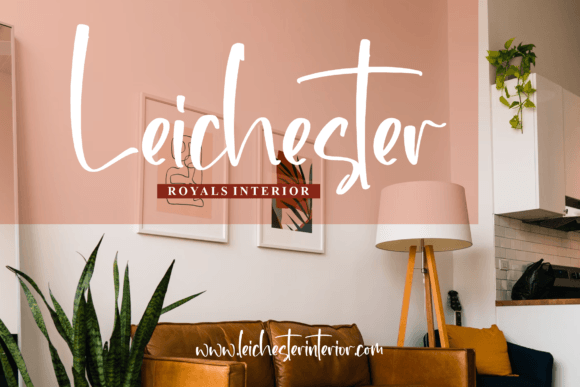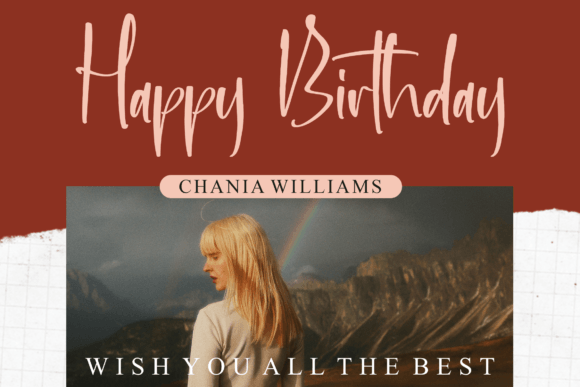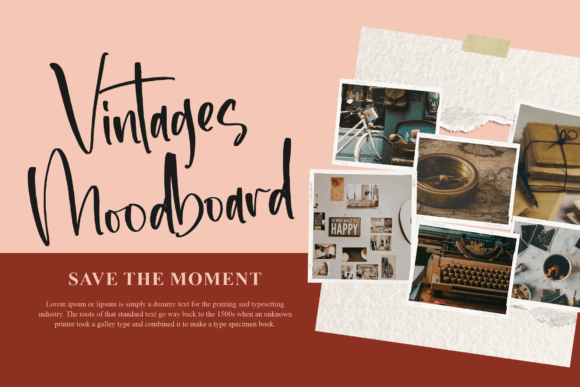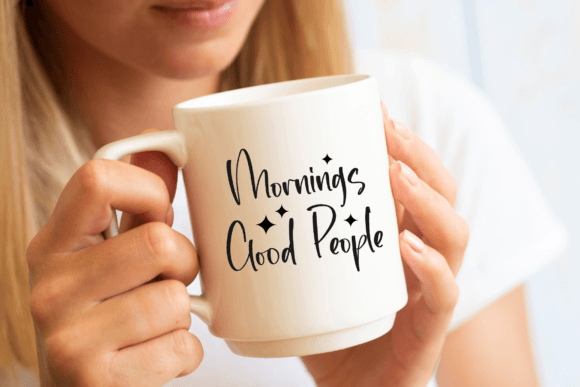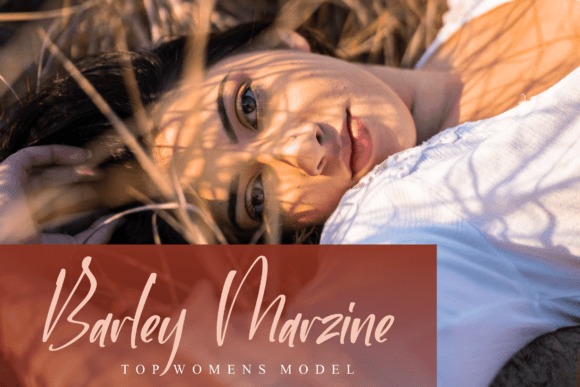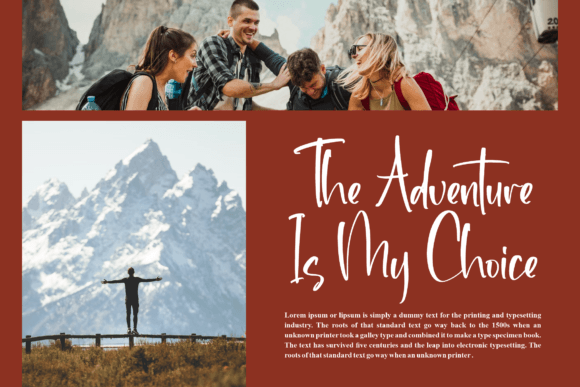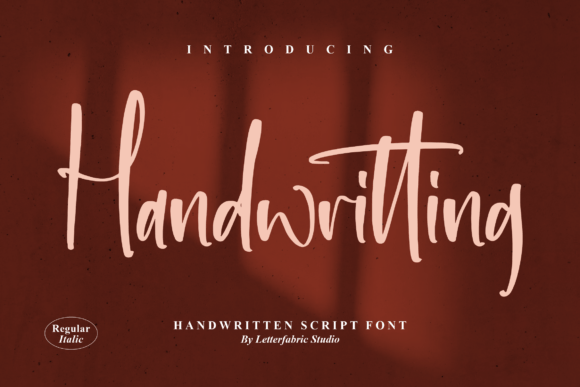
The Beauty of Handwriting Fonts: Elevate Your Designs with a Personal Touch
Handwriting fonts have become a staple in the world of design, offering a unique and personal touch to various projects. From logos and branding to homeware designs, product packaging, and more, a well-chosen handwriting font can make all the difference. In this article, we’ll explore the world of handwriting fonts, specifically focusing on handwritten script fonts suitable for a wide range of projects.
What is a Handwriting Font?
A handwriting font is a typeface that mimics the look and feel of handwritten text. These fonts are designed to replicate the imperfections and uniqueness of human handwriting, giving them a personal and authentic feel. Handwriting fonts can range from simple and elegant to complex and ornate, making them versatile for various design applications.
The Charm of Handwritten Script Fonts
Handwritten script fonts are a popular choice among designers and crafters due to their elegance and sophistication. These fonts feature connected letters, often with flourishes and swashes, creating a beautiful and flowing script. Handwritten script fonts are perfect for projects that require a touch of luxury, creativity, and personality.
Uses of Handwriting Fonts
Handwriting fonts, particularly handwritten script fonts, are suitable for a wide range of projects, including:
- Logos and branding projects: Create a unique and memorable brand identity with a custom handwriting font.
- Homeware designs: Add a personal touch to your home decor with handwriting fonts on wall art, throw pillows, and more.
- Product packaging: Stand out on store shelves with eye-catching packaging featuring a beautiful handwriting font.
- Mugs and ceramics: Add a touch of elegance to your tableware with handwriting fonts.
- Quotes and posters: Create inspiring and stylish quotes and posters with a handwritten script font.
- Shopping bags and packaging: Elevate your brand’s shopping experience with custom handwriting fonts on bags and packaging.
- T-shirts and apparel: Design stylish and unique apparel with handwriting fonts.
- Book covers and stationery: Add a touch of sophistication to your book covers, journals, and stationery with handwriting fonts.
- Name cards and invitation cards: Create personalized and elegant name cards and invitation cards with handwritten script fonts.
- Greeting cards and labels: Add a personal touch to your greeting cards and labels with handwriting fonts.
- Photography and watermark: Use handwriting fonts as a watermark for your photos or as a overlay for a unique look.
- Special events: Create custom handwriting fonts for special events, such as weddings, birthdays, and more.
Why Choose a Handwriting Font?
Handwriting fonts offer several benefits, including:
- Uniqueness: Handwriting fonts are one-of-a-kind, making your designs stand out from the crowd.
- Personality: Handwriting fonts convey a sense of personality and human touch, making your designs more relatable.
- Flexibility: Handwriting fonts can be used in various design applications, from digital to print.
- Elegance: Handwritten script fonts, in particular, add a touch of elegance and sophistication to any design.
Tips for Choosing the Right Handwriting Font
With so many handwriting fonts available, choosing the right one can be overwhelming. Here are some tips to help you make the right choice:
- Consider the project’s tone and purpose: Choose a handwriting font that matches the tone and purpose of your project.
- Think about legibility: Ensure the handwriting font is legible and easy to read.
- Look for versatility: Choose a handwriting font that offers variations, such as bold, italic, and swashes.
- Check the font’s quality: Ensure the handwriting font is of high quality, with clear and crisp lines.
Handwriting fonts, particularly handwritten script fonts, offer a unique and personal touch to various design projects. With their elegance, sophistication, and versatility, handwriting fonts are perfect for designers and crafters looking to add a touch of personality to their work. By choosing the right handwriting font, you can elevate your designs and make them stand out from the crowd.